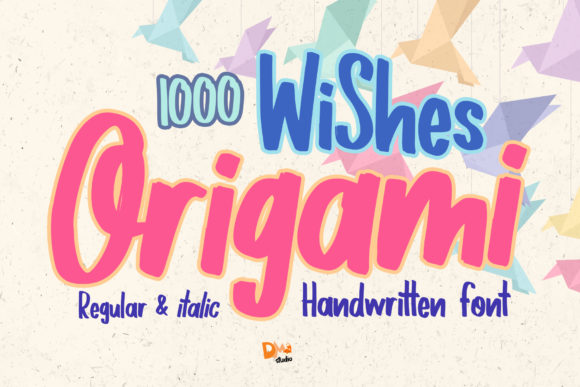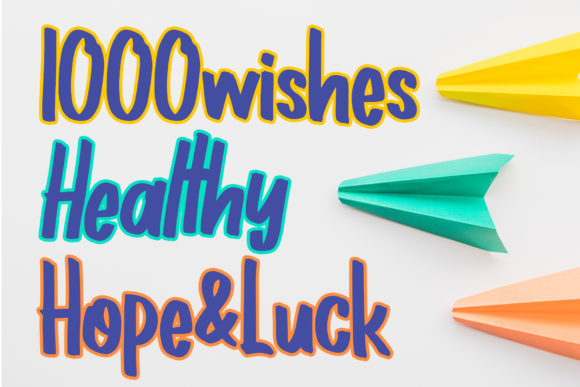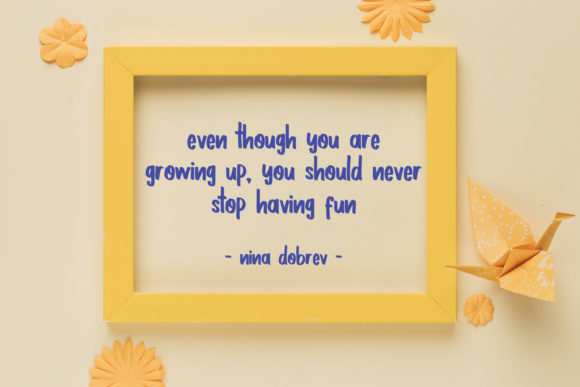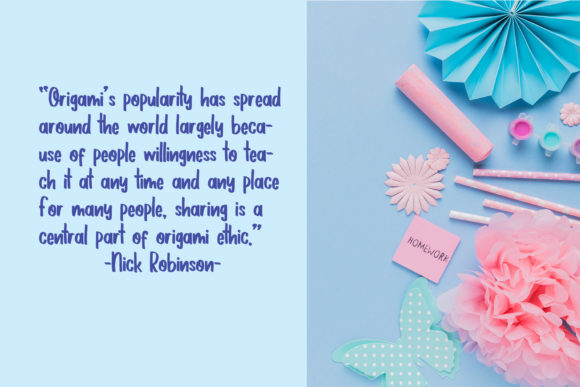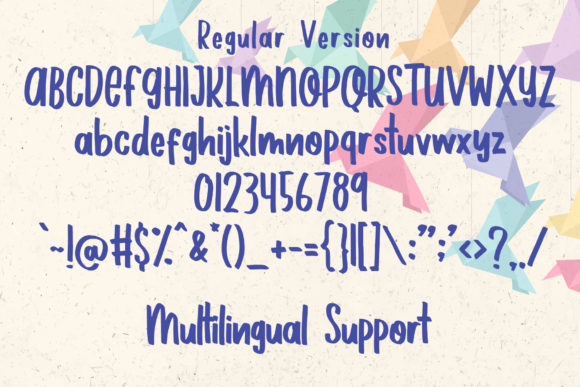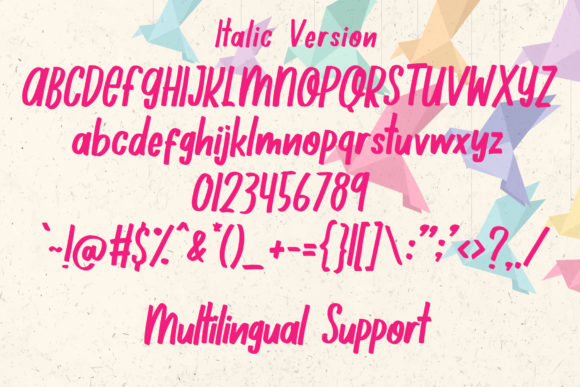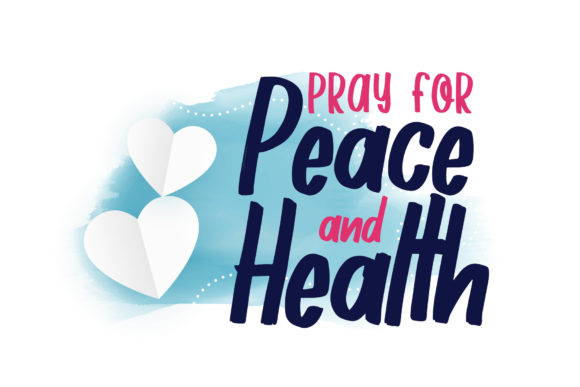
1000 Wishes Origami Font
About 1000 Wishes Origami Font
1000 Wishes Origami is a casual handwritten. This font will look outstanding in any context, whether it’s being used on busy backgrounds or as a standalone headline!